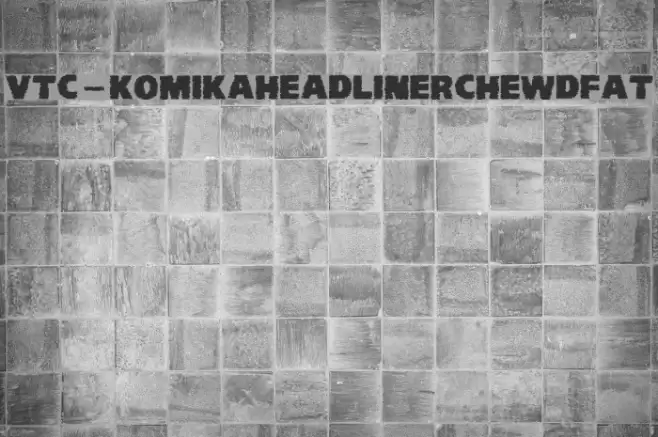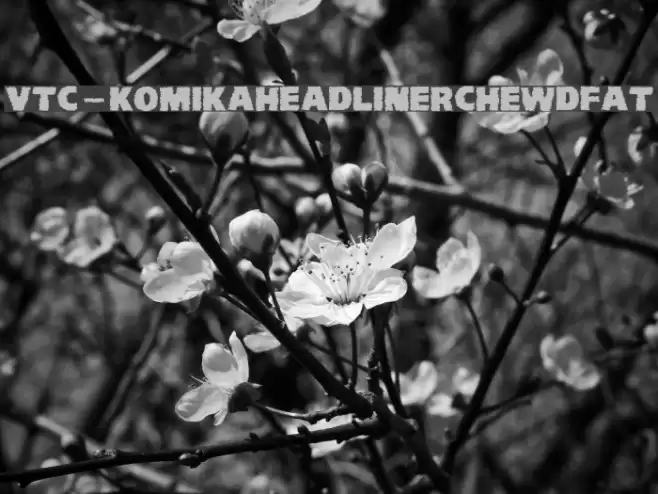
VTC-KomikaHeadLinerChewdFat Font
VTC-KomikaHeadLinerChewdFat Description
This font features a bold and playful design with a distressed, textured appearance that gives it a unique, hand-crafted feel. The characters are thick and chunky, making them highly visible and impactful. The rough edges and irregular shapes add a sense of dynamism and energy, making it suitable for creative and informal projects. The font maintains a consistent weight throughout, ensuring readability despite its decorative style. Its distinctive look is perfect for capturing attention and conveying a sense of fun and creativity.
A bold, textured font with a playful, distressed appearance from Uncategorized fonts.
- Proposed Projects: Ideal for comic book titles, posters, children's book covers, and playful branding.
- Overall Style: Playful, Creative, Distressed